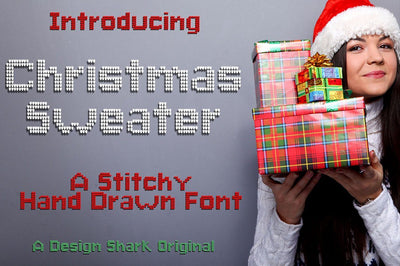
Christmas Sweater
Wow Ugly Christmas Sweaters are so popular now! I remember hating to wear them as a kid though! This font is perfect for Ugly sweater parties, or really anything knitting or crochet.